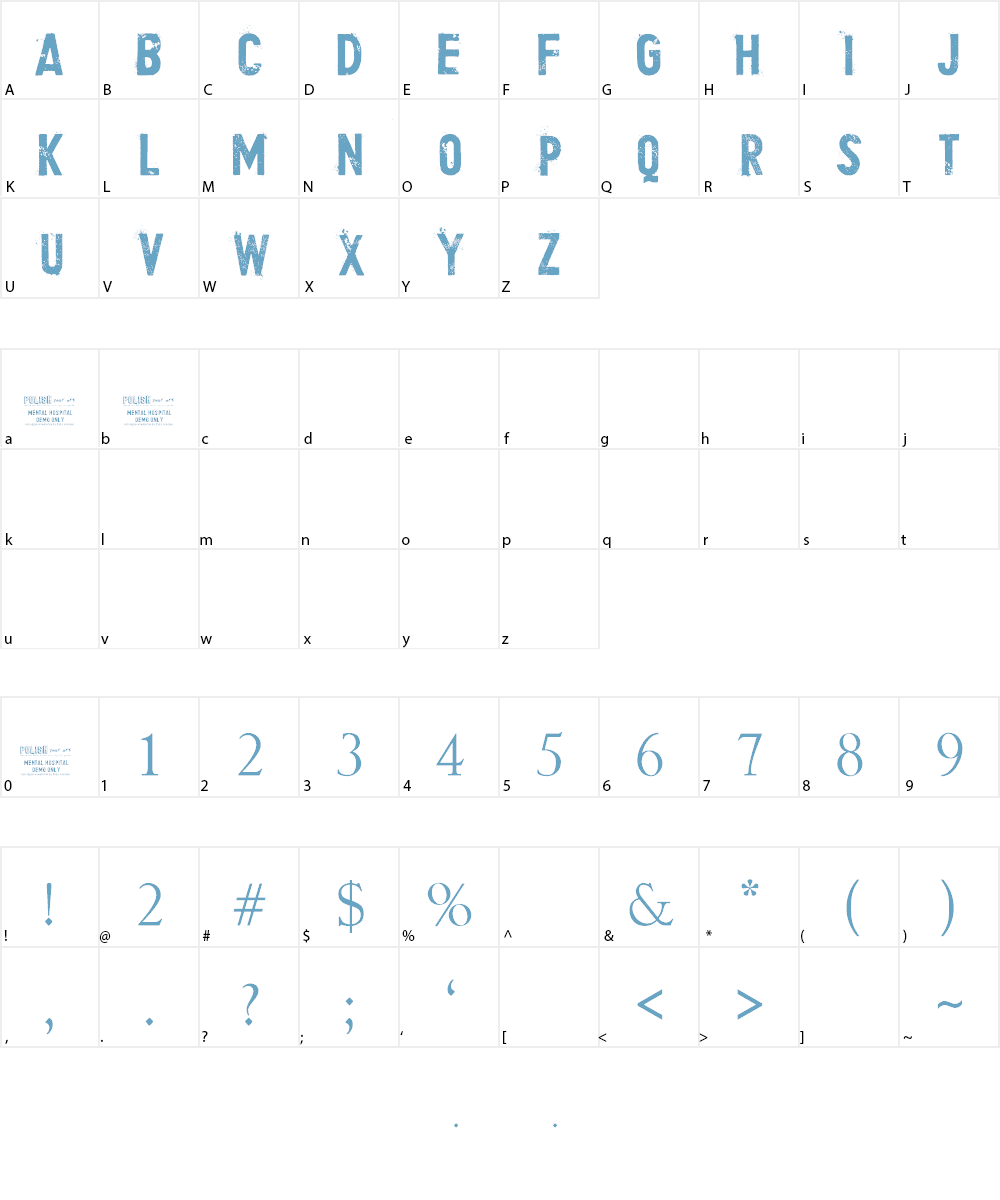
This is DEMO version of my font Mental Hospital. Designed in dark and grungy style. Perfect for some credits in horror movie ect. This is DEMO version with capital letters only. All signs are in full version included. If you are interested in commercial use licence ( one person licence) please donate 6 dollars on . If you need any other licences contact me.